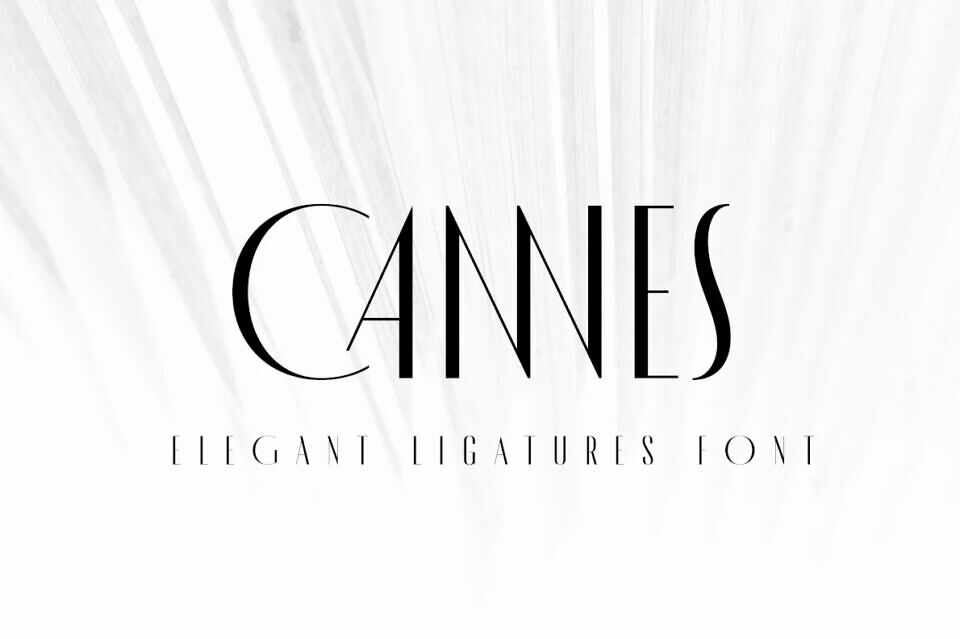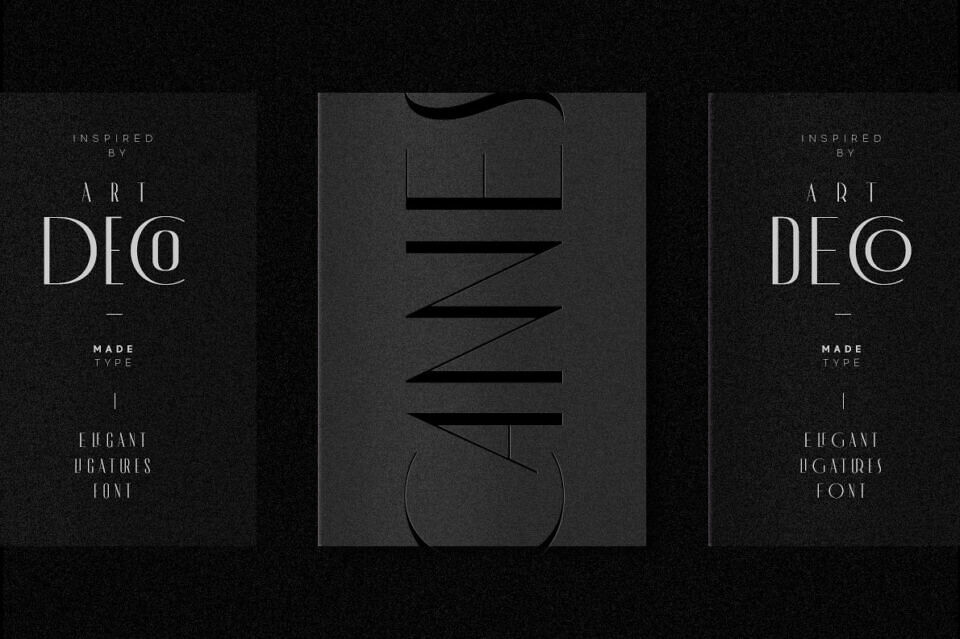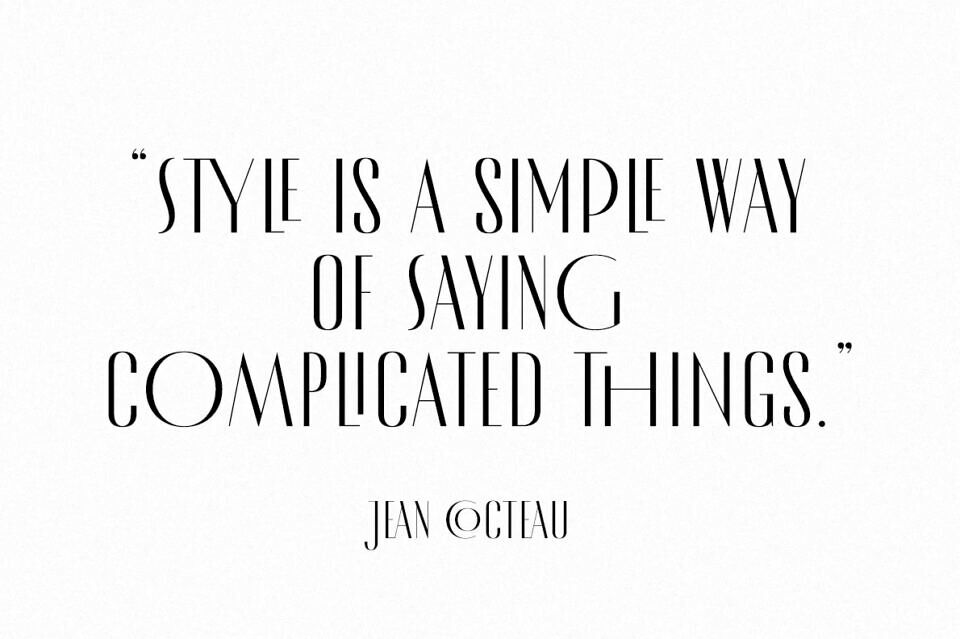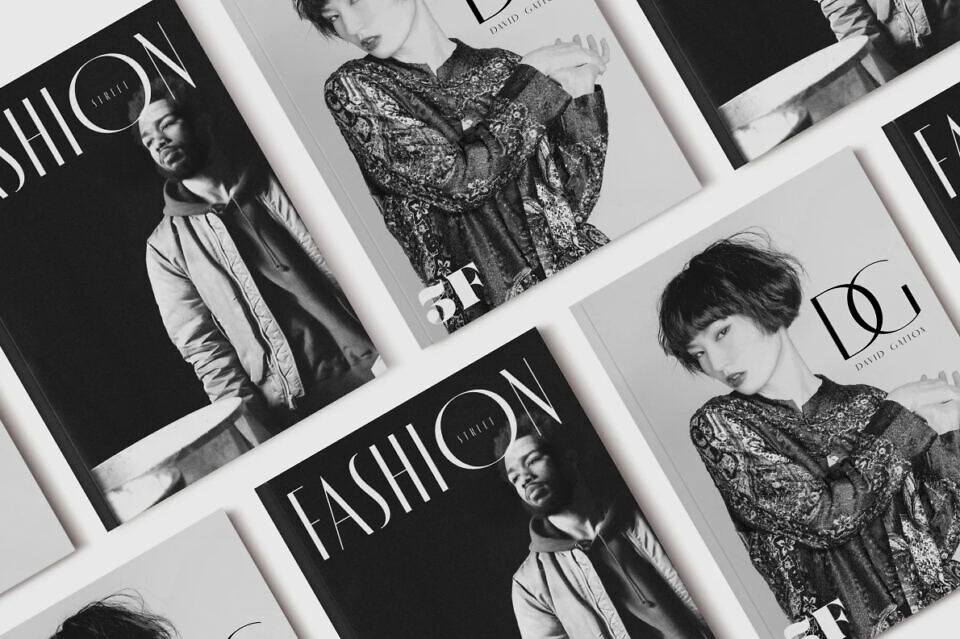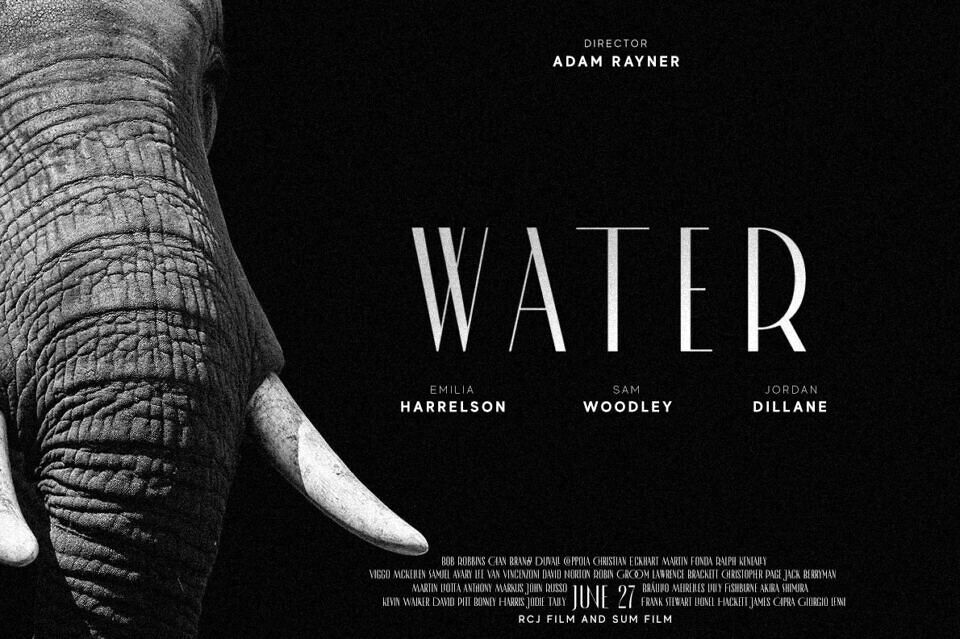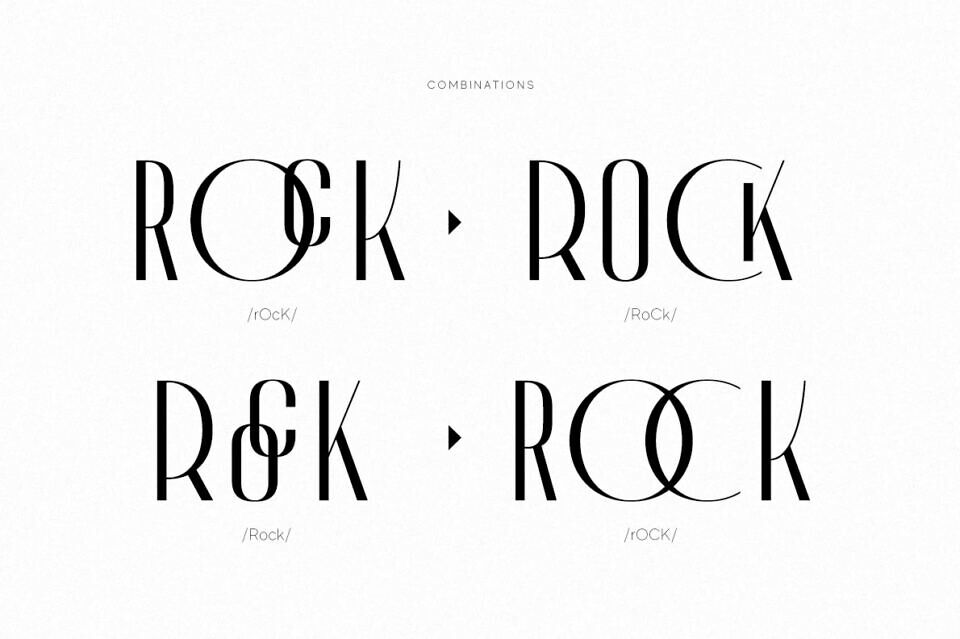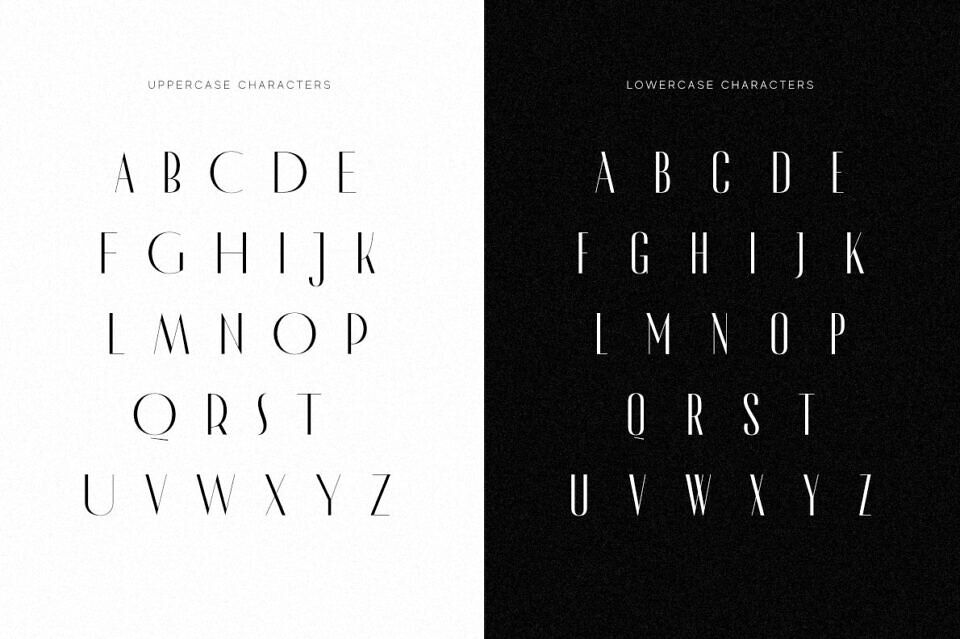
MADE Cannes Font
MADE Cannes was inspired by the art deco style. The Cannes allows you to combine between uppercase & lowercase letters, which will allow you to create a unique style!
The Cannes will perfect for many project: posters, fashion, magazines, logos, branding, photography, invitations, advertisements, quotes, etc.